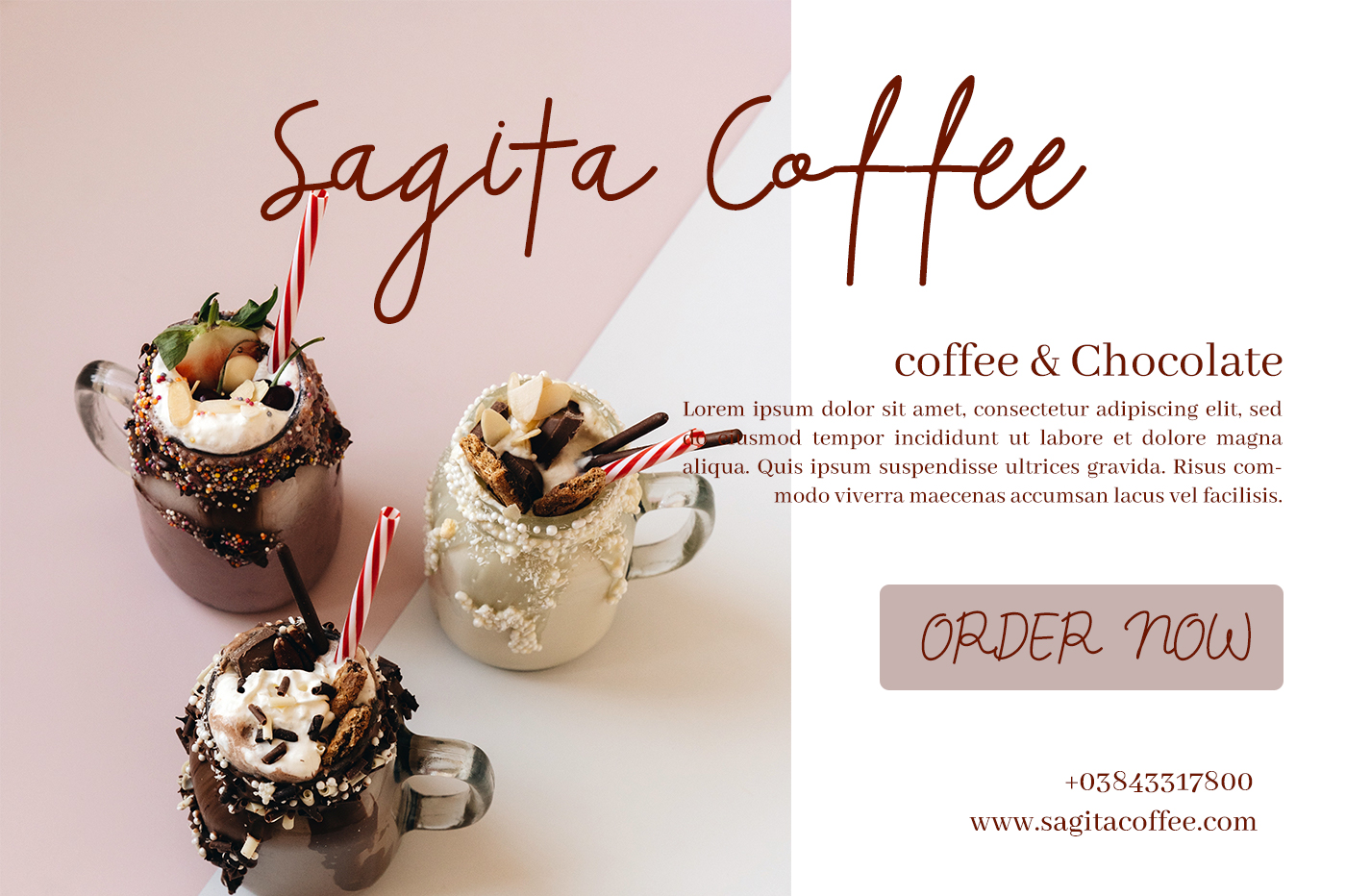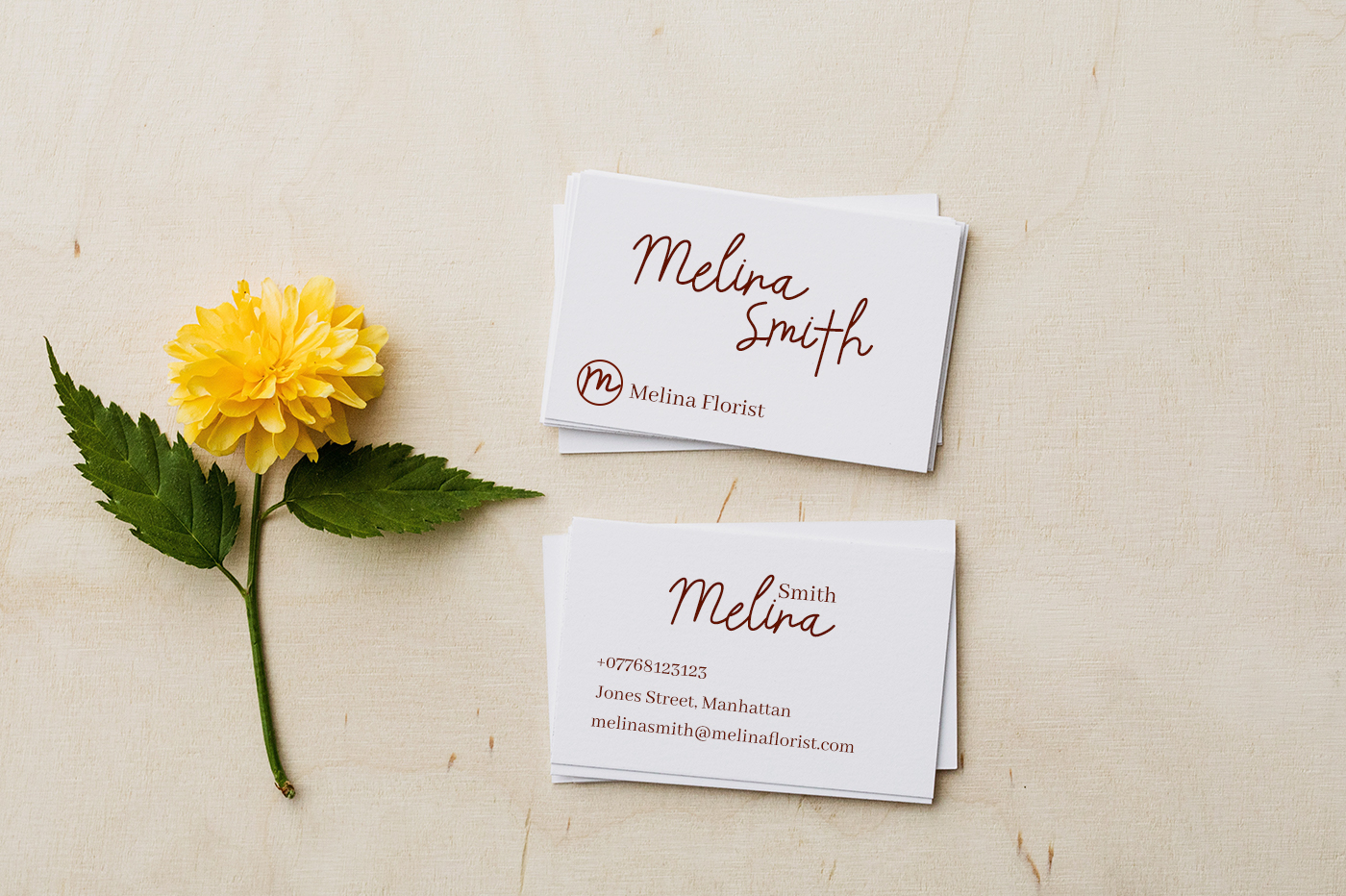
Beliya Handwritten Font
It’s a modern and thin lettered script font, featuring well balanced characters. It can be used for various purposes such as logos, wedding invitations, headings, t-shirts, letterhead, signage, labels, news, posters, badges and so much more.